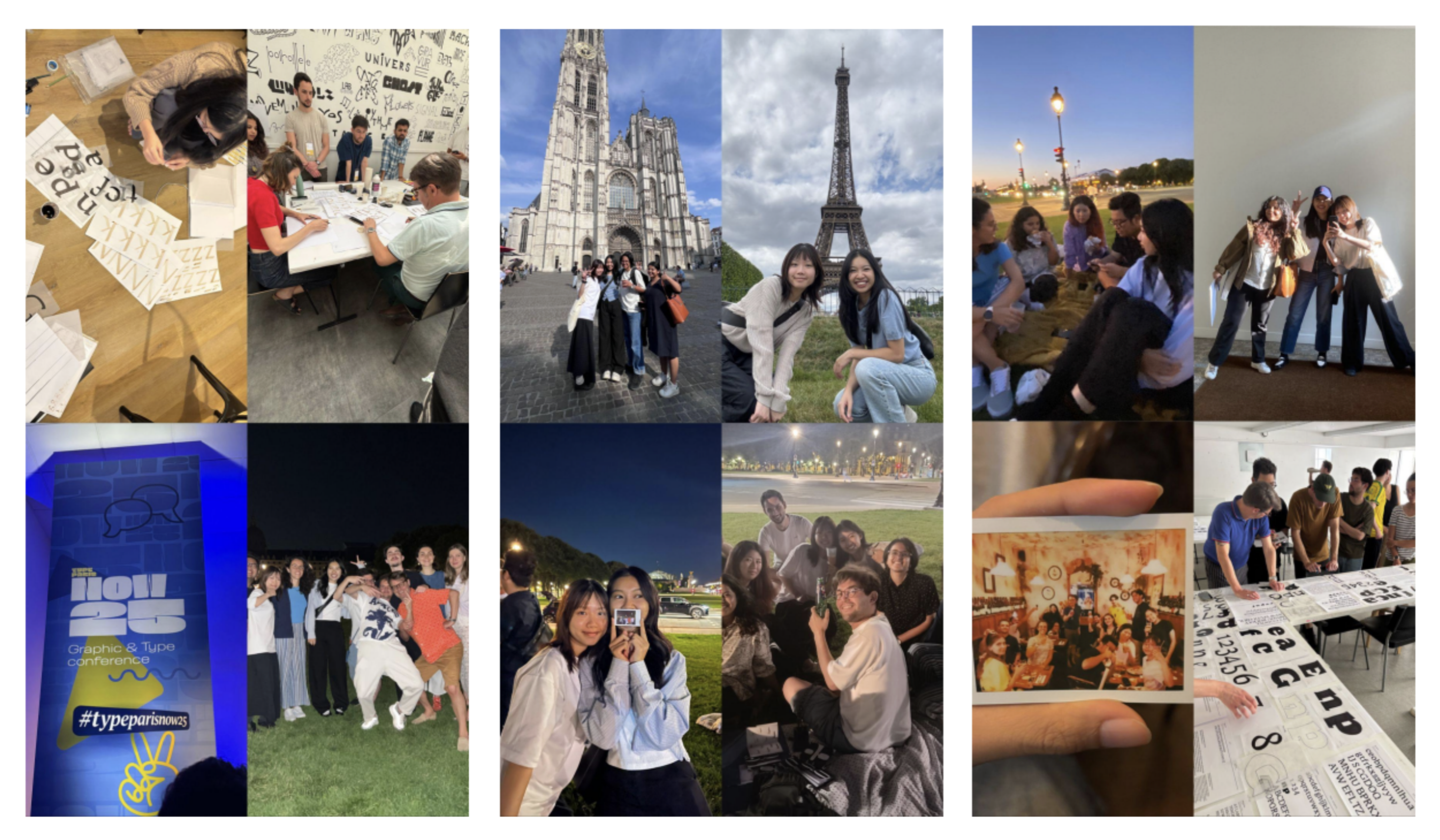
TypeParis Experience
Diary of a Cool Kid: My TypeParis 2025 Adventure
Type, Friendships, and Memories
By Thitawan Noenpoempisut
Hello, everyone! I’m Thitawan Noenpoempisut, the 2025 TypeCon scholarship recipient. The moment I received the news that I had been chosen felt completely surreal. Coming from a non-design background, I actually hesitated to apply for the scholarship. I wasn’t sure about anything. But then I thought... why not? I’ve always been interested in type and had already collected a few personal projects. I figured I had some raw material in hand, so again... why not? I remembered something my parents used to tell me when I was young: “If you try, the chance is 50/50, yes or no. But if you don’t, it’s always zero, no and no.”
And... et voilà! I’m glad and beyond grateful to have been awarded this scholarship. It opened the door to one of the best summers of my life, at TypeParis.
It’s very hard to summarize everything, but from the very first day, everything was completely new to me. I had my very first formal calligraphy class ever! It felt unfamiliar at first, yet somehow comforting, calm, and deeply satisfying. Not that I was good at it... absolutely not! But I enjoyed learning the strokes, ductus, and the history behind it all. We did a lot of practice, and the instructors mentored us one by one. I truly appreciated their patience in guiding each of us individually, despite our different levels of prior experience.
The program was so well-constructed. It helped us build a workflow and system for creating letterforms, as well as understanding the full type design process. It was very intense, like being on a bullet train with no brakes! But that intensity is exactly how I learned so much.
I discovered a small charm I really like about type design: it’s a mix of art and logic. There’s always a reason behind every design decision. When we created our key letters and selected forms from our calligraphy: why this “n” was better than that “n,” why this “c” was chosen and not that one, it wasn’t just about aesthetics. It was also about proportion, ductus, and other formal considerations. That’s the part of type design I really love.
After establishing a strong foundation in type design, we began exploring our personal projects. Each of us developed briefs to design a typeface based on our interests and specific intentions. I learned so much from my own project as well as from others.
I created Tylar, a humanist serif typeface inspired by the history of calligraphy books I discovered during our visit to the Typofonderie Library. I began developing Tylar from my own calligraphy and expanded the family into three styles: Text, Semi-Contrast, and Display, 19 in total! The display version is named Cool Kid, and yes, the title of this blog is a little nod to that! You can find in-depth details about my typeface and final presentation on the TypeParis website.
Throughout the program, we visited many amazing libraries, including the Typofonderie Library, Bibliothèque Nationale de France, Museum Plantin-Moretus in Antwerp, Belgium, and Bibliothèque de l'Arsenal. It was an incredible experience to see rare books printed as far back as the 15th century and to learn about the evolution of type and its history. These visits helped me dig deeper into the ancient know-how behind letter creation and printing techniques.
During the development of our personal projects, several international guest critics joined us each week to provide insightful feedback and fresh perspectives. I learned so much from them to improve my typeface. Each guest came from a different background and had their own working style, which allowed us to absorb many interesting points of view. They offered us not only critique but also inspiration and paths to explore.
My day-to-day experience at TypeParis was intense. I focused on being time-efficient and constantly improving the quality of my work. Whenever I encountered questions or technical issues, I was able to consult closely with my teachers. The individual support from the TypeParis instructors was a huge benefit to us. Each project was unique, and we received tailored support accordingly. Because our projects were so different from one another, we also learned a lot from each other. If I want to do a revival in the future, I know which friend to ask. If I want to explore display type, I know who to talk to. We will not be lost on future projects!
Even though the class was intense, I never felt pressured. Instead, it felt like an opportunity to push my boundaries. One thing that really stuck with me was the importance of respecting myself and my design, and learning that insecurity is not a bad thing, so don’t hide your creativity!!
As someone from a non-design background, I had no problem adjusting to the class speed and content overall, though I did struggle a bit at the beginning. I saw tremendous growth, not just in my type design skills but also in life skills. I learned how to meal prep every day for lunch to save time for my project. Every day at TypeParis felt like being on a bullet train...fast-paced and full of energy! Time flew by super fast!!
Not only that, I was able to learn some French from my classmates, which was a great benefit of changing my workstation every week. It helped me meet new friends and learn from different people. My French classmates even gave me homework each day to learn new words and phrases, which was such a joy for a language lover like me!
And one last thing for anyone hesitating, especially if you’re coming from a different background like me: your degree doesn’t define you, and it definitely doesn’t get to decide what you’re allowed to love or pursue. You can absolutely pivot, start fresh, and dive into something you’re passionate about. Trust me, you’re more capable than you think!